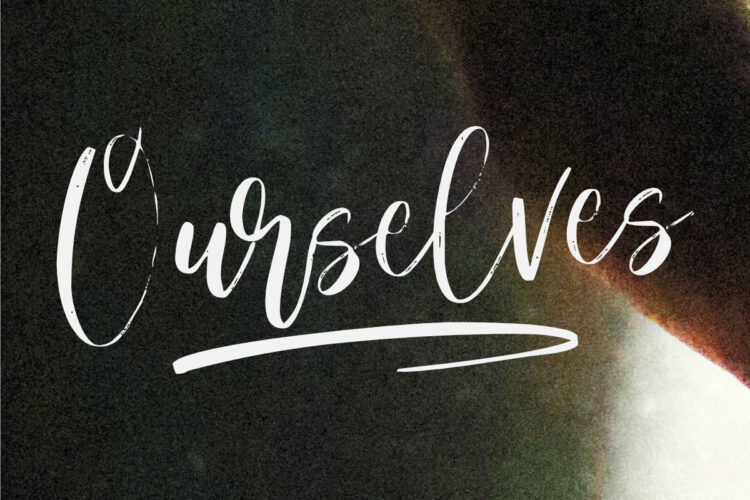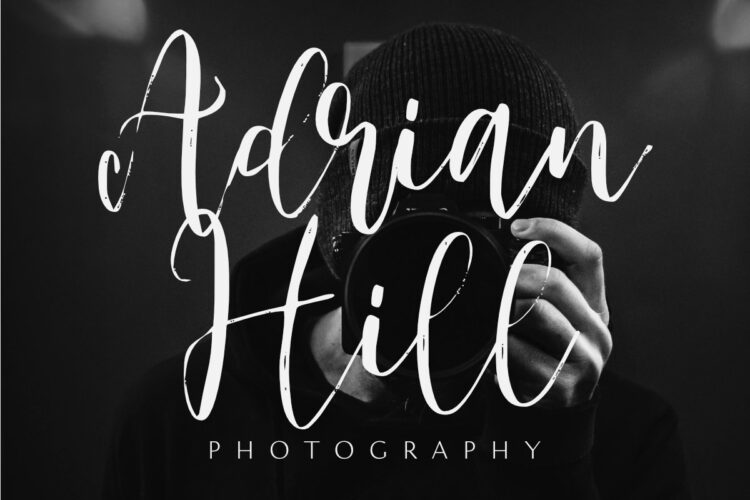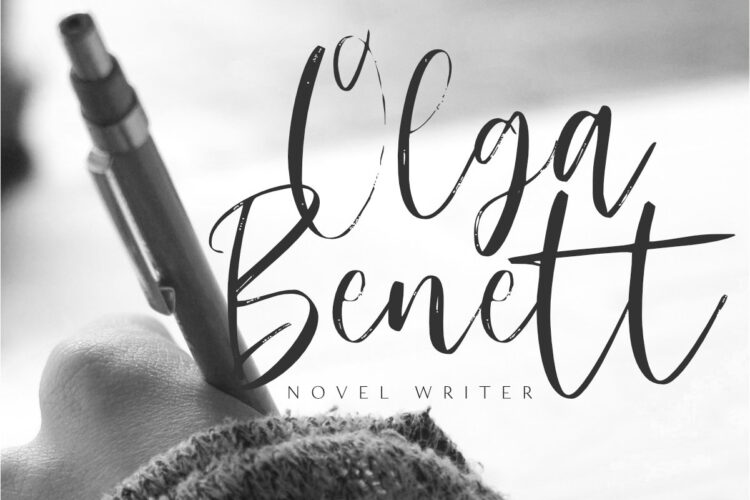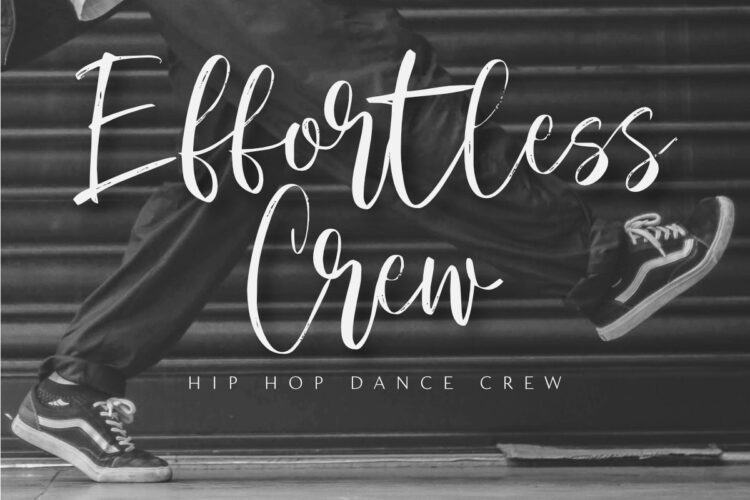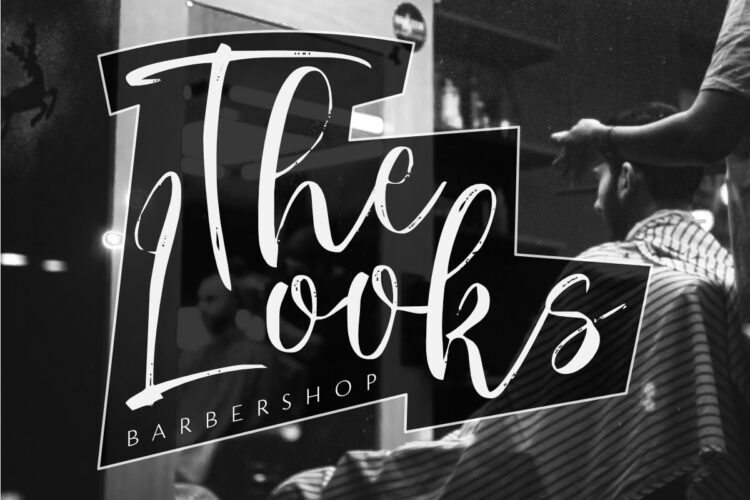
Ourselves is a brush script font with a cool, awesome texture. Use it to create beautiful, unique logos and headlines. Ourselves is perfect for giving your projects a natural, handmade feel.
- Basic Latin A-Z & a-z.
- Ligatures and swashes